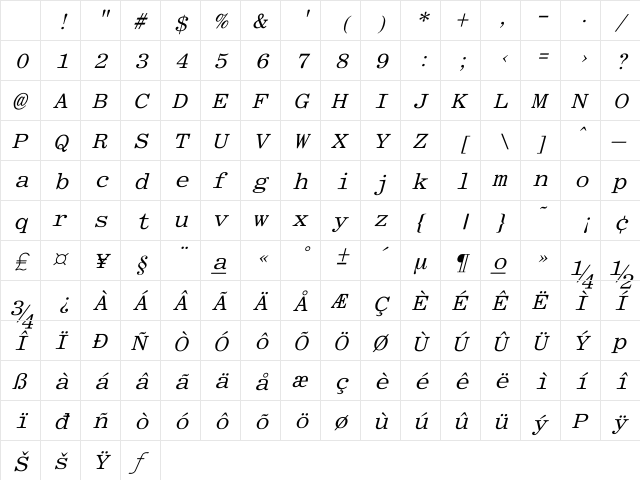
Complete Asphalt Fixed Italic glyph index. Displaying only characters natively supported by Asphalt Fixed Italic font.
Asphalt Fixed is a composed and adaptable typeface that performs quietly and consistently across a wide range of design contexts. The slanted form adds forward momentum and visual energy.